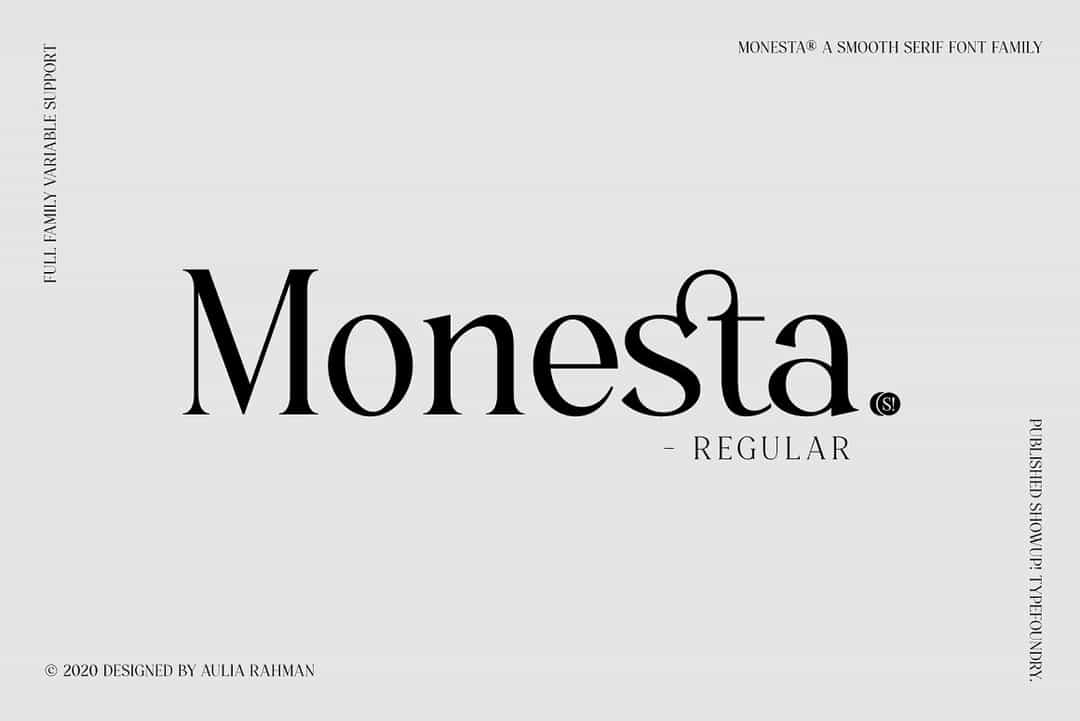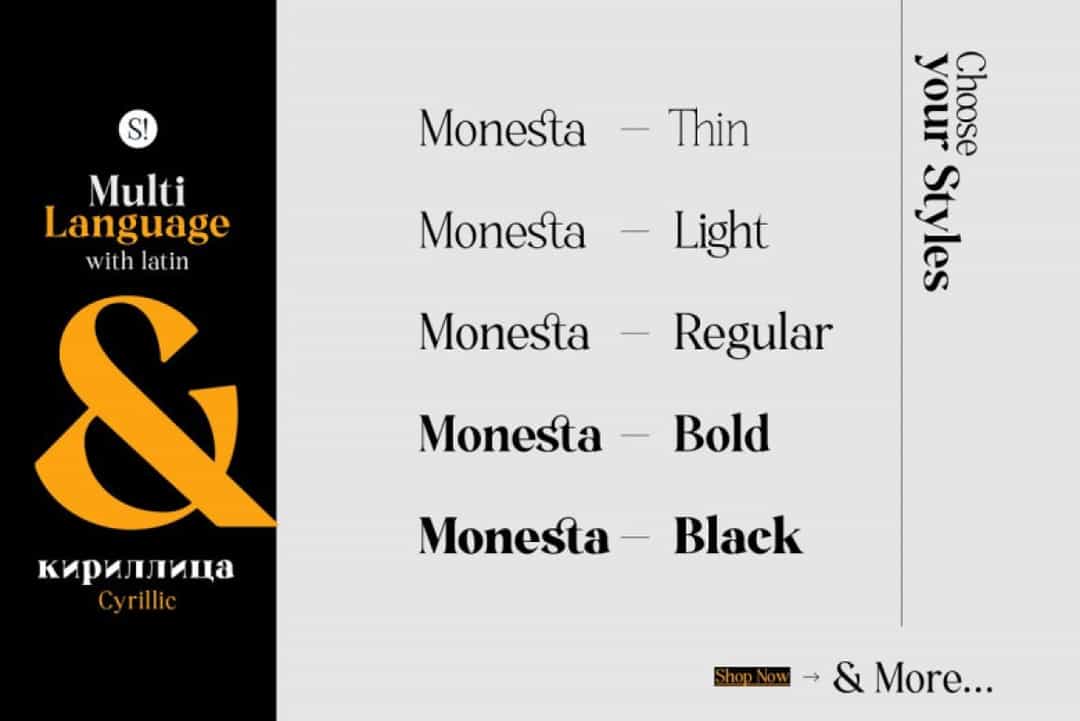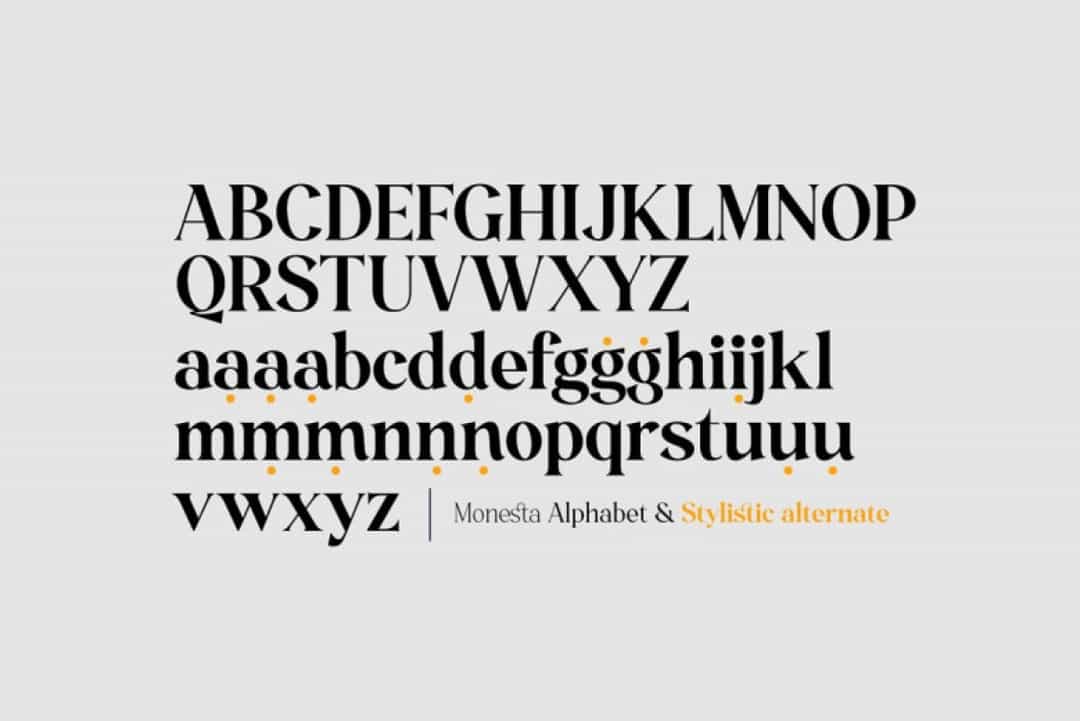
Monesta is an elegant and confident serif font family designed by Aulia Rahman for creating a delicate and classy look and made to be functional as a useful tool and a good communicator.